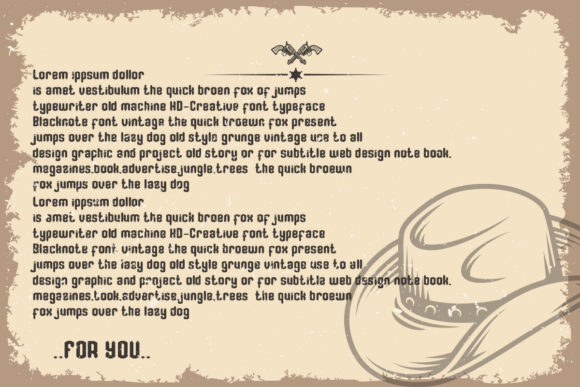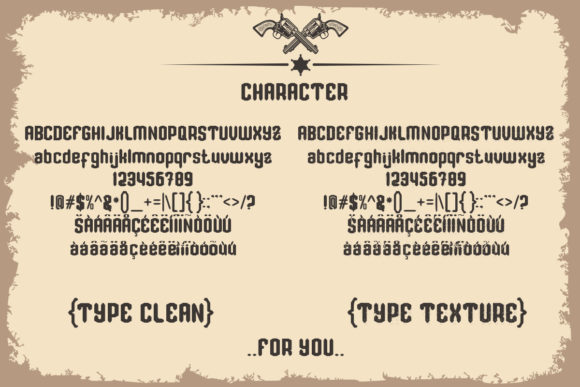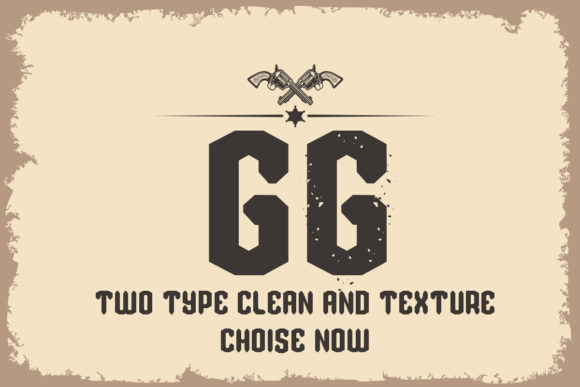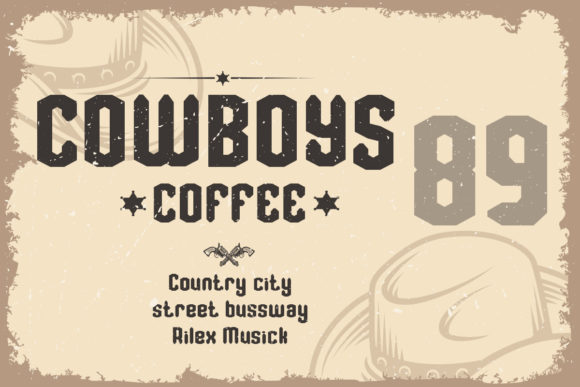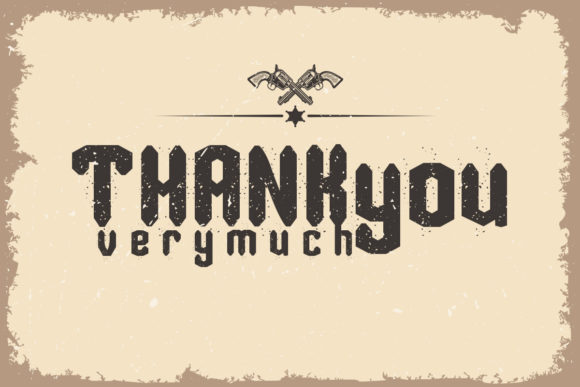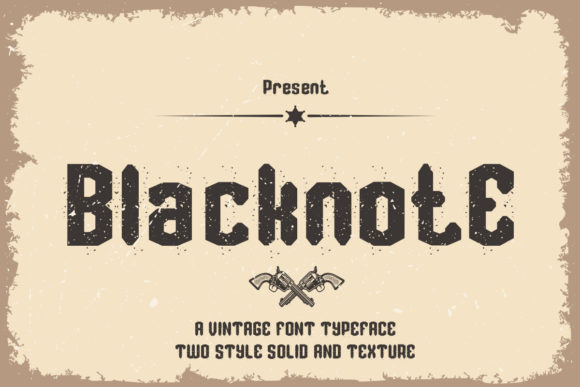
Introducing Blacknote Font: Elevate Your Designs with a Bold and Vintage Flair
In the world of typography, fonts play a pivotal role in bringing creativity and character to any design project. Whether you’re working on a letterhead, title, or stationery, the right font can make all the difference. This is where Blacknote Font comes into play – a bold and vintage-styled display font that is set to revolutionize your design endeavors. In this article, we’ll dive deep into the features, benefits, and uses of Blacknote Font, making it a must-have for designers and crafters alike.
What is Blacknote Font?
Blacknote Font is a unique, bold, and vintage-styled display font designed to add an original touch to your designs. Its distinctive look is inspired by classic typography, yet it carries a modern edge that makes it versatile for a wide range of projects. From crafting elegant letterheads and compelling titles to designing bespoke stationery, Blacknote Font is engineered to elevate your work with its sophisticated charm.
Key Features of Blacknote Font
- Bold and Vintage Style: Blacknote Font boasts a bold and vintage aesthetic that instantly captures attention. Its unique style is perfect for making a statement in any design.
- Versatility: Despite its specific style, Blacknote Font is surprisingly versatile. It can be used in various design projects, from traditional print designs like letterheads and stationery to digital applications.
- High-Quality: As a high-quality font, Blacknote ensures crisp and clear rendering, even at larger sizes, making it perfect for both print and digital media.
Benefits of Using Blacknote Font
There are numerous benefits to incorporating Blacknote Font into your design projects. Here are a few:
- Unique Designs: With Blacknote Font, you can create unique and standout designs that set you apart from the crowd. Its distinctive vintage style adds a touch of elegance and sophistication to your work.
- Professional Look: Blacknote Font gives your designs a professional look, making it ideal for business-related projects. Whether you’re designing for a client or your own brand, this font helps you achieve a polished and refined aesthetic.
How to Use Blacknote Font in Your Designs
Incorporating Blacknote Font into your projects is straightforward. Here are some ideas to get you started:
- Letterheads and Titles: Use Blacknote Font to create striking letterheads and titles that grab attention. Its bold style ensures your message stands out.
- Stationery: Elevate your stationery designs with Blacknote Font. It adds a vintage charm that can make your stationery look bespoke and unique.
- Digital Designs: Don’t limit Blacknote Font to print designs. Its high-quality and clear rendering make it suitable for digital applications, such as website headers, social media graphics, and more.
Blacknote Font is a game-changer for designers and crafters looking to add a bold and vintage flair to their work. Its unique style, versatility, and ease of use make it an indispensable tool in your design arsenal. Whether you’re working on letterheads, titles, stationery, or digital designs, Blacknote Font is sure to elevate your projects with its sophisticated charm. So, why wait? Explore the creative possibilities with Blacknote Font today and take your designs to the next level.